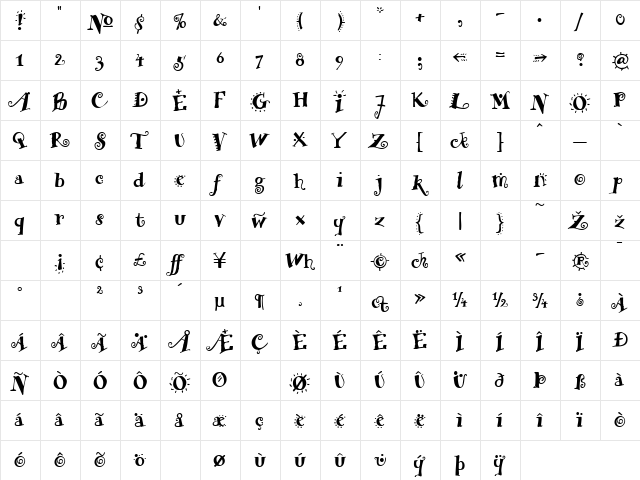
HERMAN Regular
Design Context for HERMAN Typeface
HERMAN is a composed and adaptable typeface that performs quietly and consistently across a wide range of design contexts.